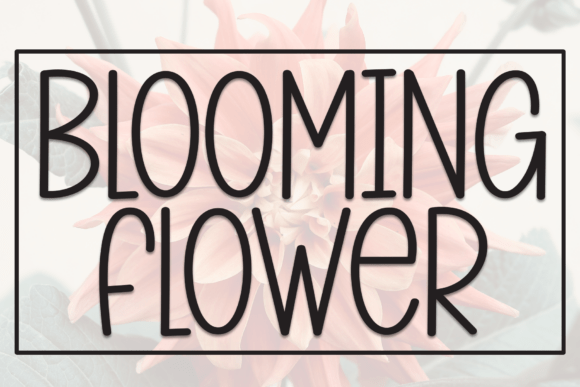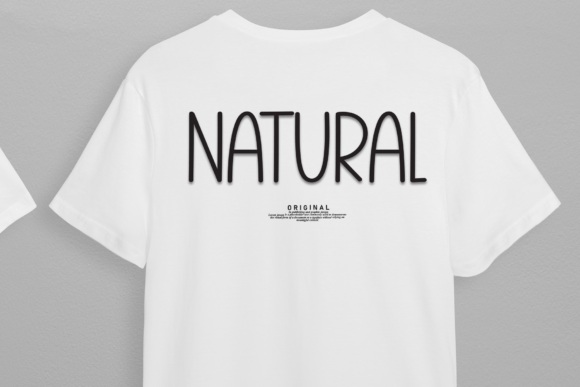
Blooming Flower Font
About the Blooming Flower Font
The Blooming Flower Font offers a perfect balance of form and function for your design needs. Embrace charm in every keystroke with the heartwarming handwritten allure of this display font. Infused with a playful spirit, this delightful font elegantly crafts wedding invitations, greeting cards, or any design seeking a sprinkling of joy. Whether it’s evoking a smile or crafting an unforgettable impression, this sweet and friendly font is a wonderful tool for adding a whimsical touch to your creations.
Blooming Flower Font is ideally suited for headlines, short text blocks on invitations or packaging, and logos where a touch of playful elegance is desired. It excels in projects emphasizing a lighthearted and friendly brand personality, such as children’s products, cafes, or artisan businesses. Avoid using it for large amounts of body text or UI elements; its delicate nature makes extended reading difficult.
This font pairs well with clean sans-serif fonts like Lato or Open Sans for a balanced contrast, enhancing readability when used in conjunction with Blooming Flower for headlines or short phrases. For a more sophisticated feel, consider pairing it with a classic serif like Garamond or a slightly more modern serif like Playfair Display. Avoid pairing it with other highly decorative or script fonts, as this might create visual overload.
Its core personality is best described as charming and whimsical, yet elegant, making it perfect for brands seeking a friendly and memorable visual identity. The font’s inherent playfulness is balanced by its refined letterforms, offering versatility within a clearly defined aesthetic.